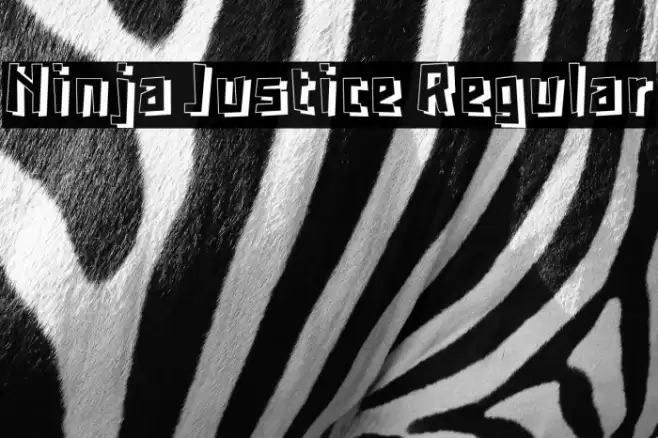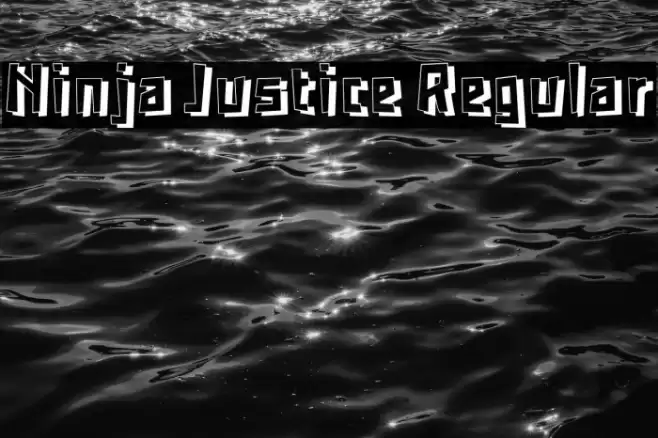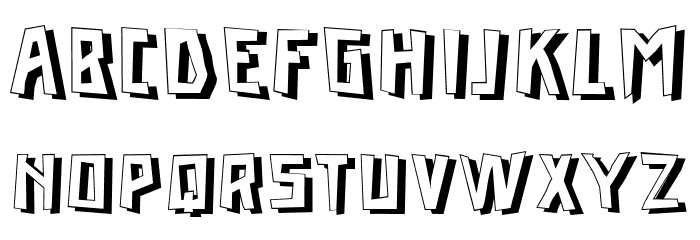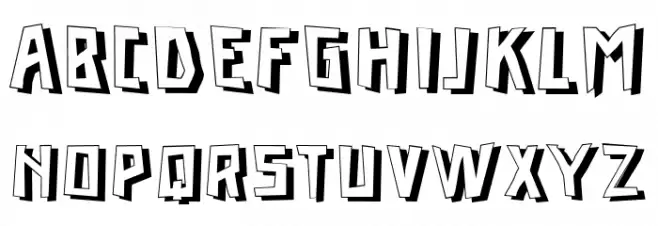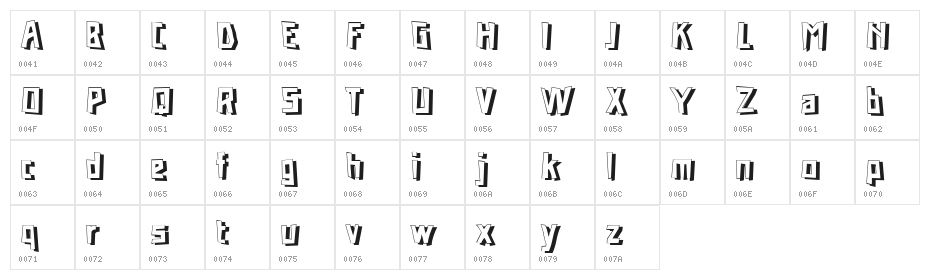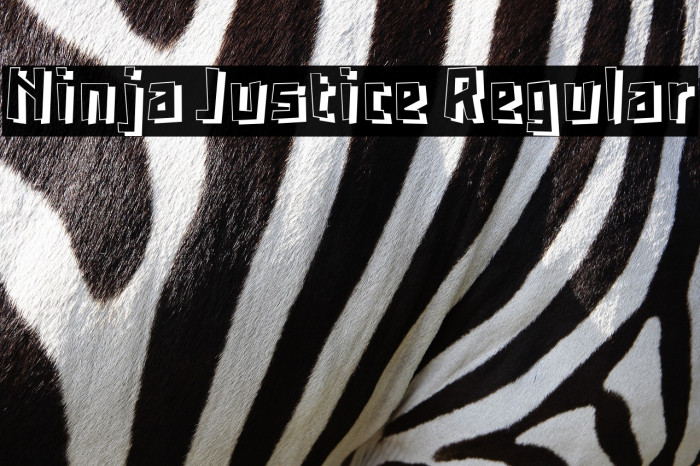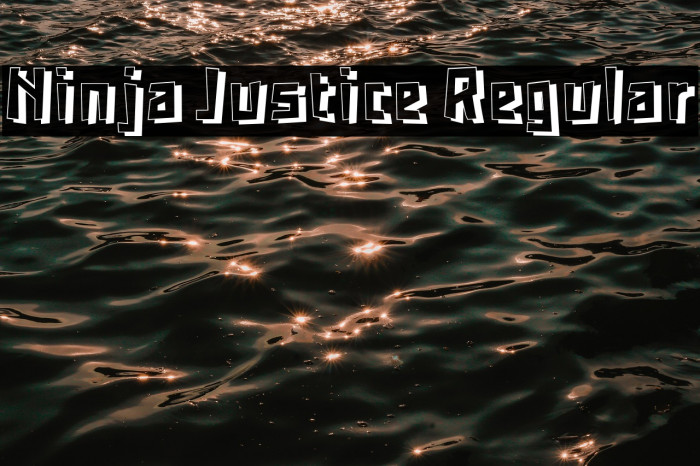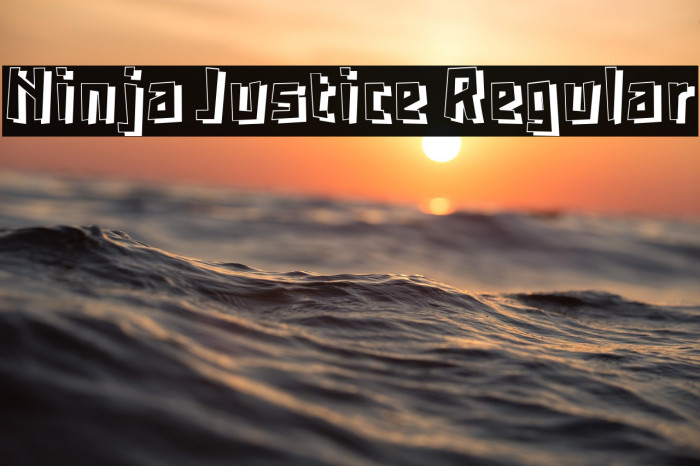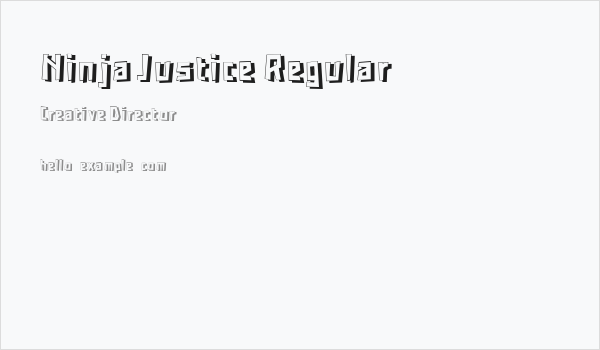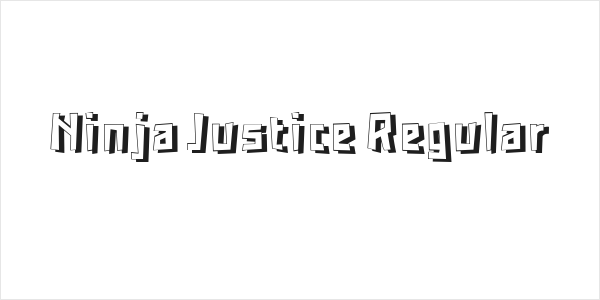
Ninja Justice Regular Font
Ninja Justice Regular Description
This font features a bold and dynamic style with a three-dimensional effect, giving each character a shadowed appearance. The letters are angular and sharp, conveying a sense of movement and energy. The uppercase and lowercase characters maintain a consistent style, with exaggerated angles and a playful, comic-like aesthetic. The numbers and special characters follow the same design principles, ensuring a cohesive look across all glyphs. This font is perfect for projects that require a bold and impactful visual presence.
A bold, dynamic font with a 3D shadow effect and angular, comic-like characters from Uncategorized fonts.
- Font: Ninja Justice Regular
- Proposed Projects: Ideal for comic book titles, video game graphics, posters, and branding that requires a strong, energetic look.
- Overall Style: Modern, Decorative